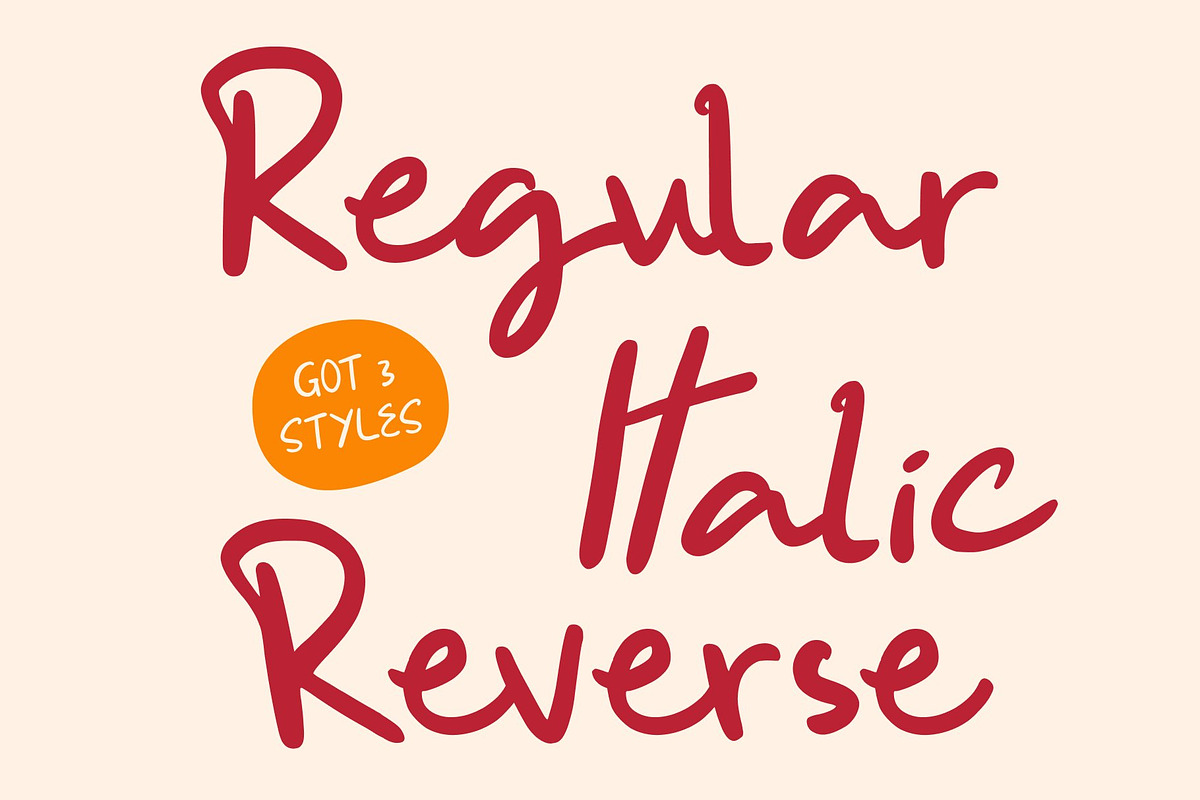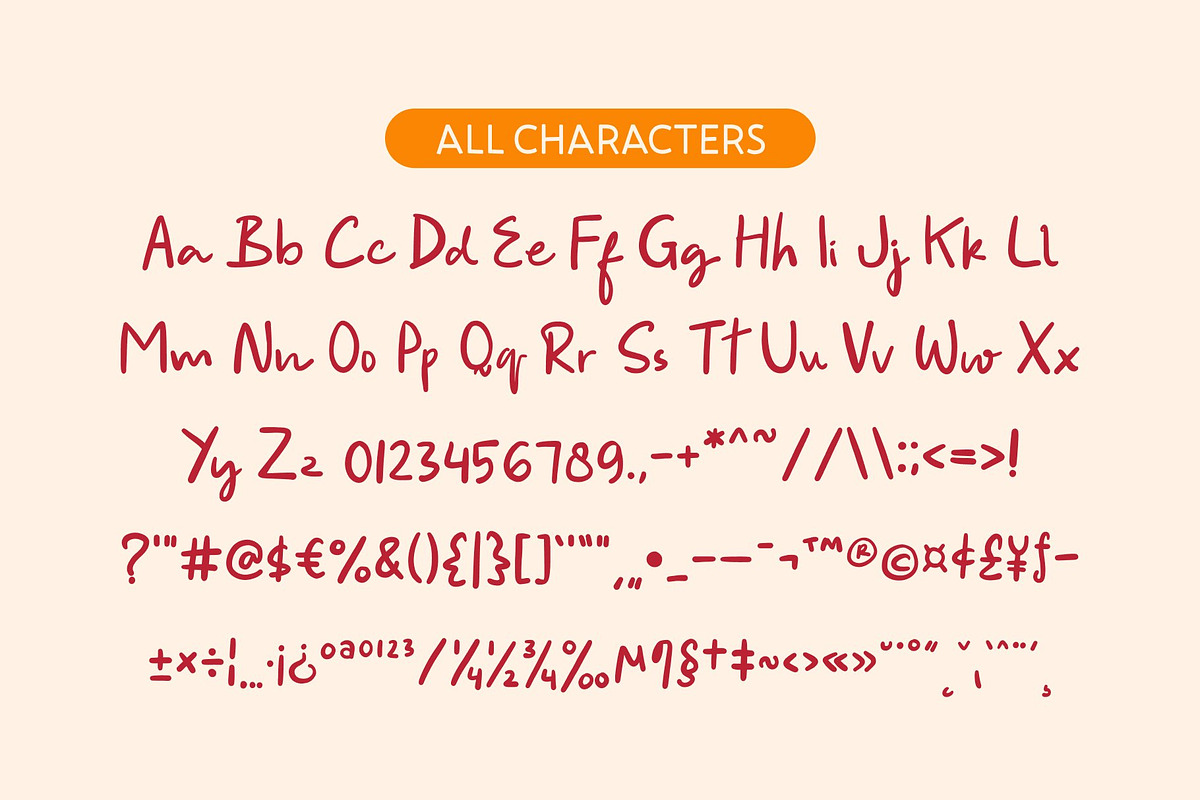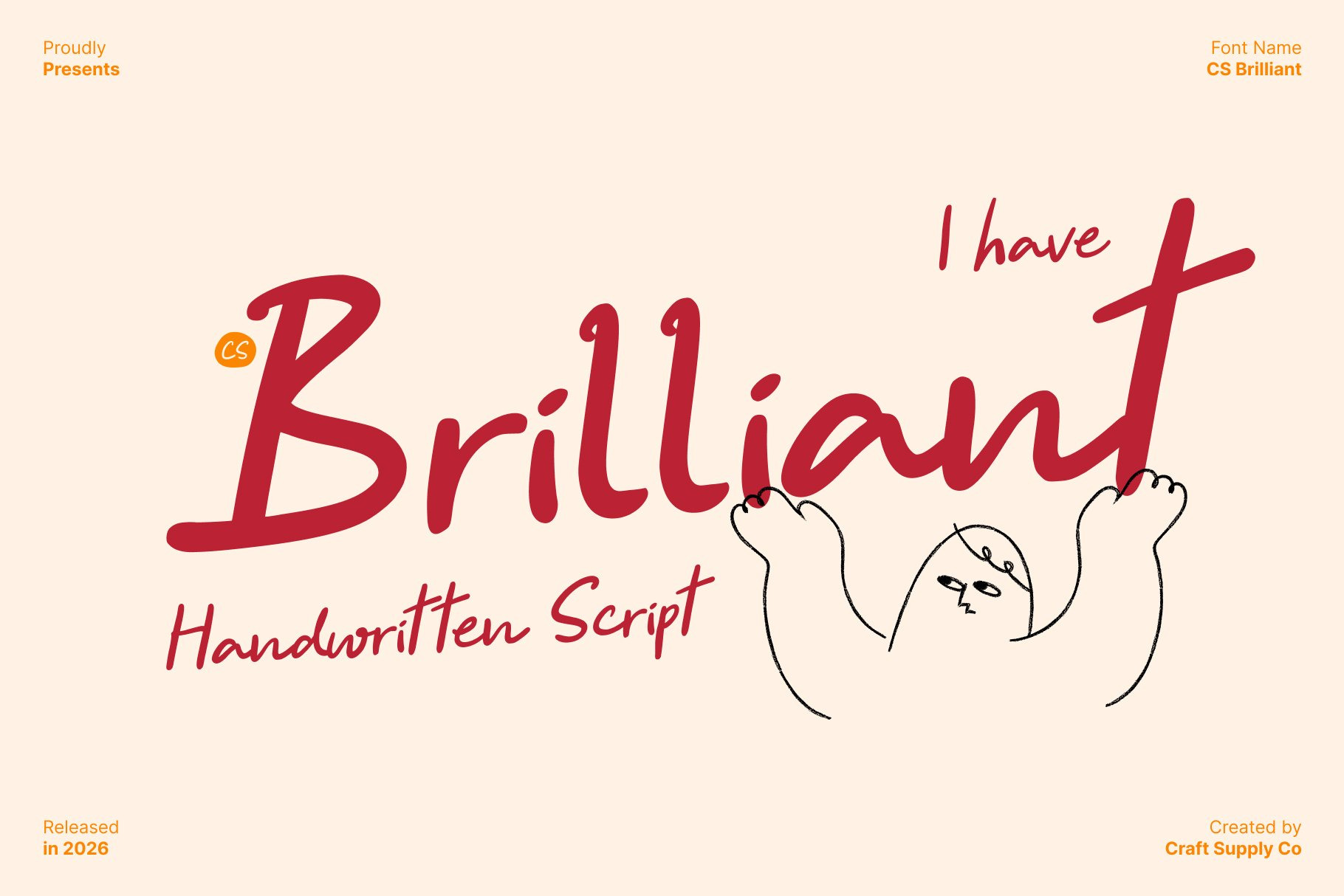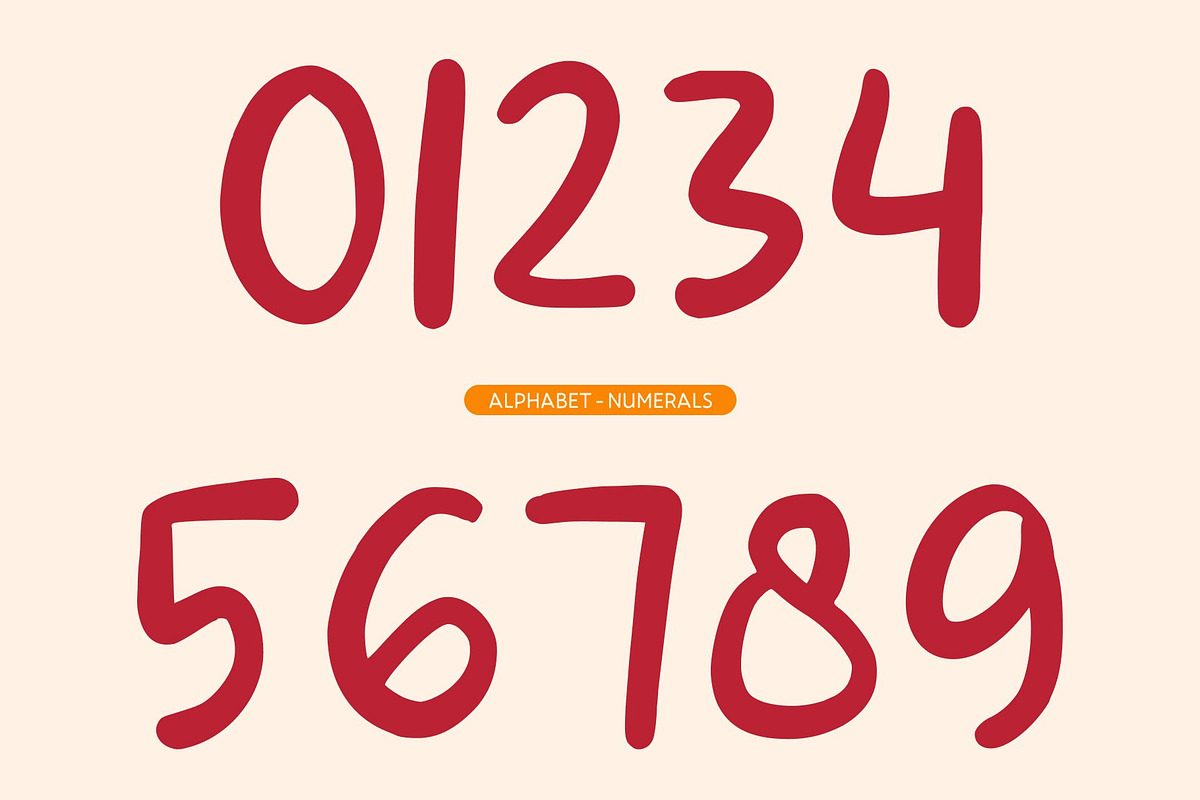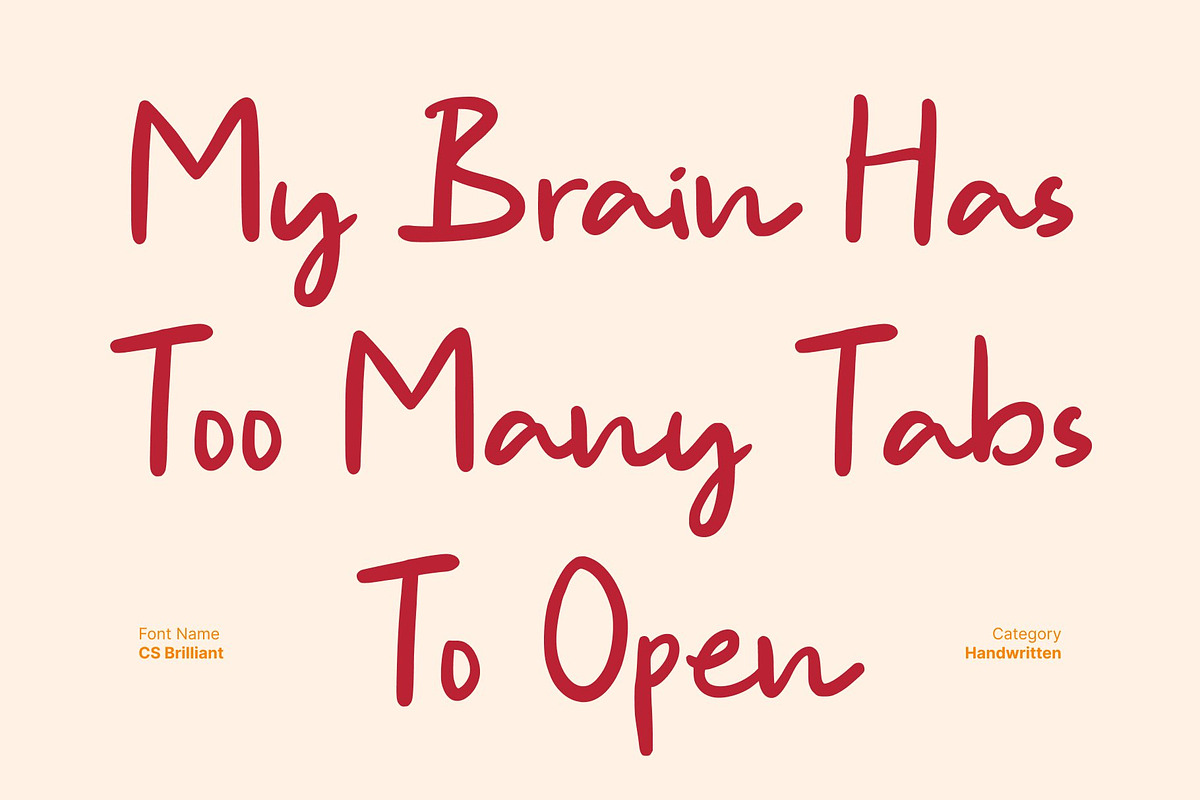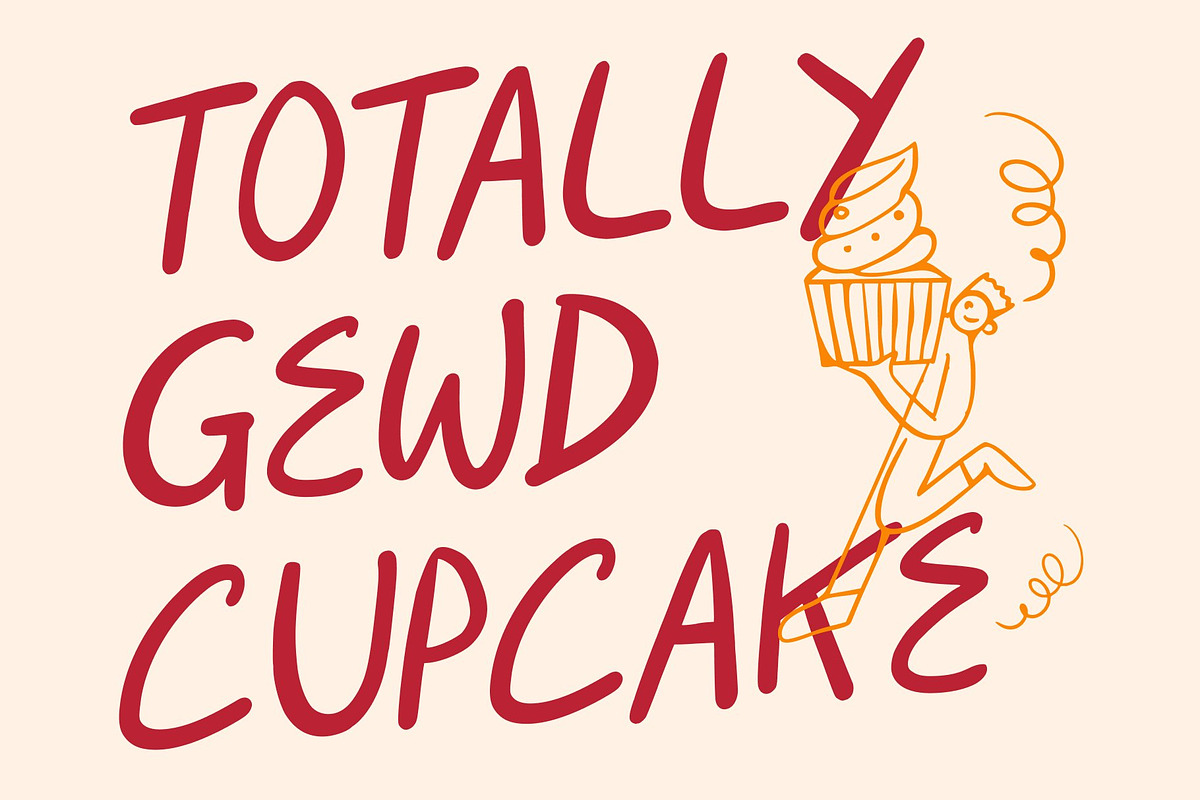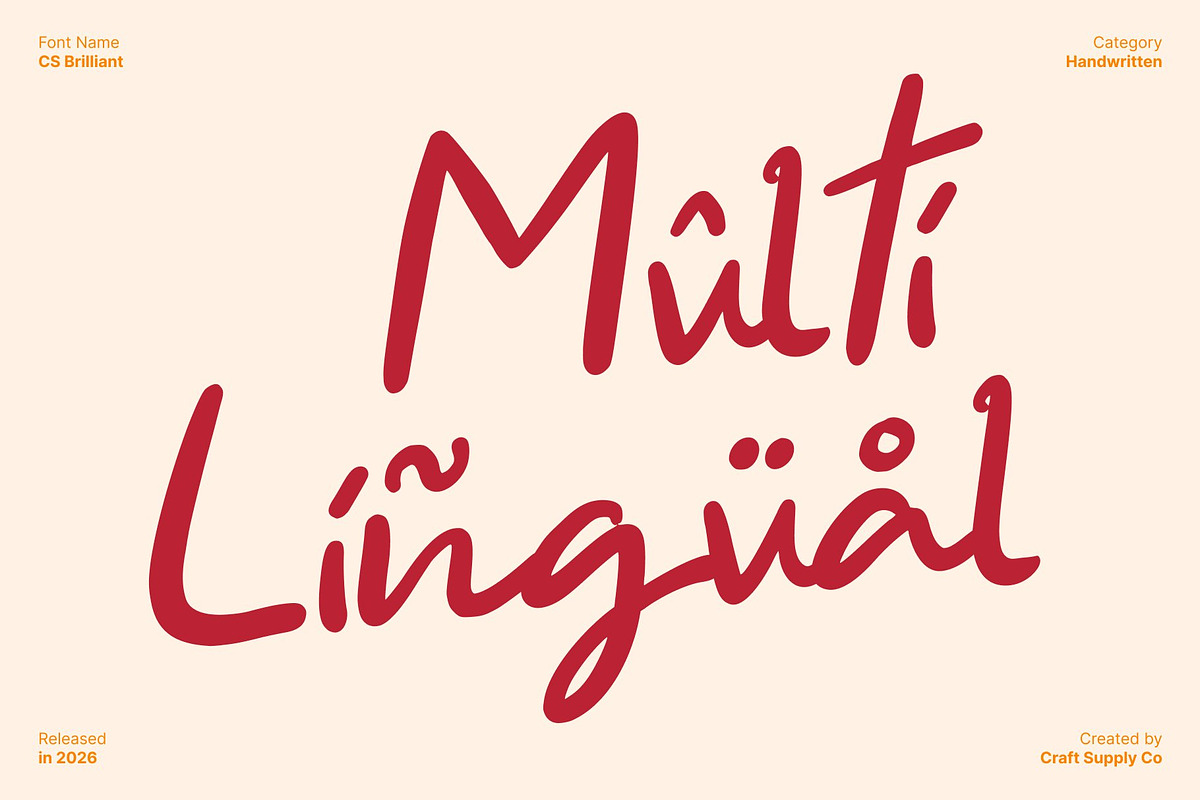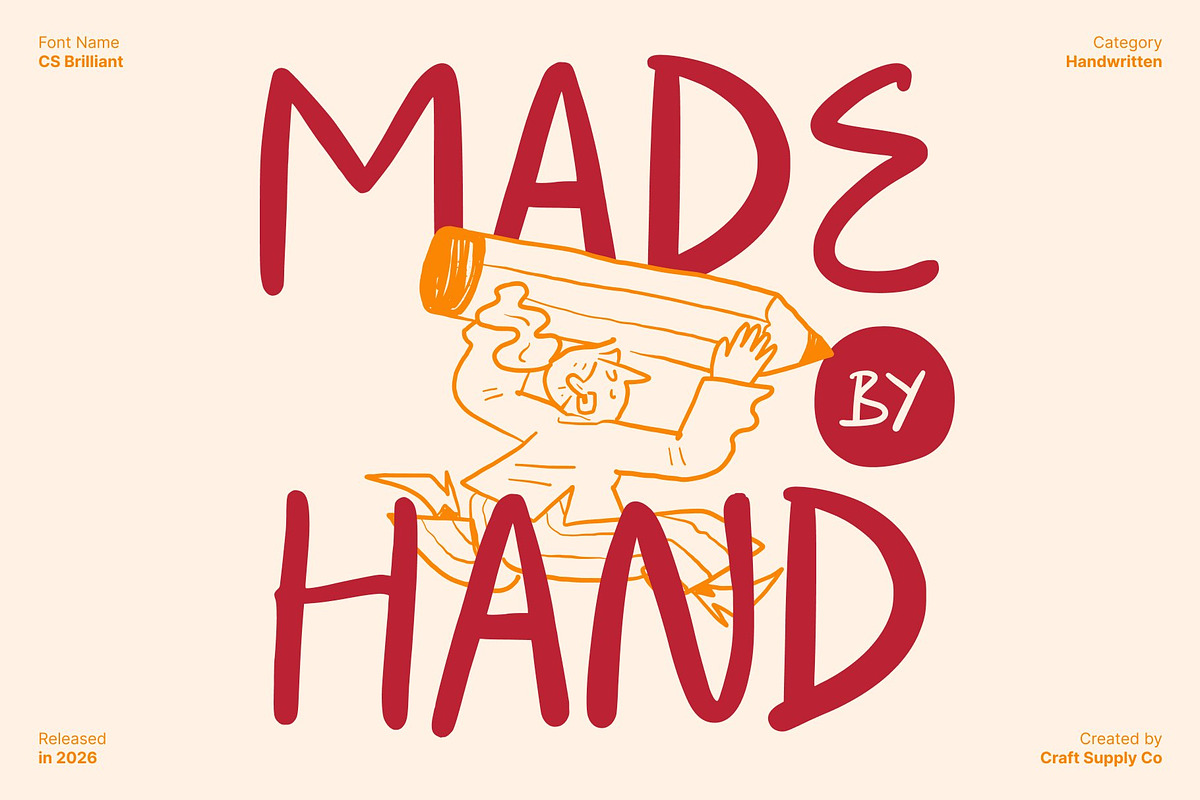
CS Brilliant – Handwritten Font
CS Brilliant – Handwritten Script with Natural Warmth
Soft Handwritten Script Font This is a handwritten script font designed to capture the beauty of natural pen strokes with a clean, modern touch. Its soft structure and smooth flow create a friendly and approachable appearance, blending the authenticity of handwriting with the clarity of a sans serif. This balance makes this font expressive without feeling messy, and personal without losing readability.
Natural Pen Stroke Character Inspired by real handwritten movement, this font features organic curves and subtle irregularities that bring genuine character to every letter. These natural details add warmth and emotion to your typography, making text feel human, relaxed, and inviting. The handwritten style enhances storytelling and emotional connection in visual communication.
Expressive, and Approachable Unlike traditional scripts, this font maintains a script foundation that keeps layouts neat and legible. This creates a soft yet structured look that works beautifully across both digital and print media. The font feels casual and expressive while still looking polished and intentional.
Perfect for Personal and Casual Design This font is ideal for personal branding, quotes, casual invitations, lifestyle content, and creative social media designs. It brings an authentic, warm tone to projects that need to feel personal, honest, and approachable. Whether you want to add charm to a quote or personality to a brand, this font delivers a natural handwritten feel with modern simplicity.
- CS Brilliant Regular
- CS Brilliant Italic
- CS Brilliant Reverse Italic